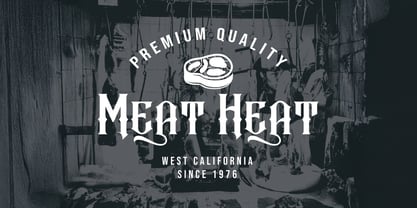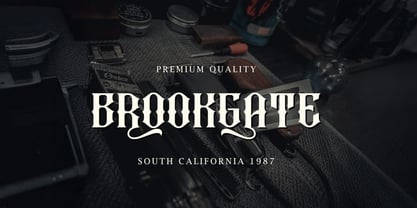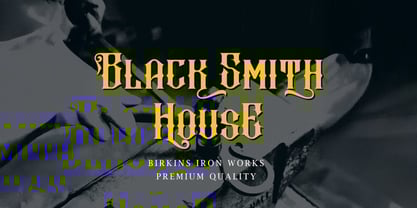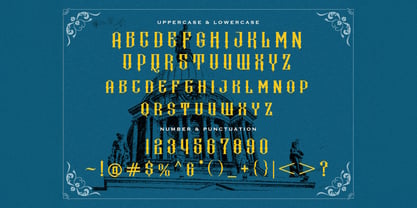
The Hewina Font Family was designed by Virgiawan Listanto and published by Stringlabs Creative Studio. Hewina contains 1 styles. More about this family
Hewina is a Victorian display font that blends elegance with intricate vintage charm. Featuring ornate curves, decorative swashes, and bold strokes, it evokes the grandeur of 19th-century typography. Ideal for posters, invitations, logos, book covers, packaging, and signage, Hewina adds a touch of classical sophistication and dramatic flair. Its timeless Victorian style makes it perfect for projects that demand artistry, elegance, and historical character.
Hewina